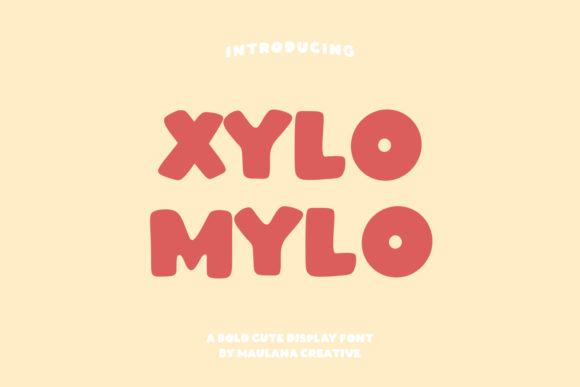
Prepare yourself to be spellbound by the captivating charm of Xylomylo Font, a display font that embodies the essence of cinematic magic. Crafted with meticulous care by the esteemed Maulana Creative, Xylomylo is a typographic masterpiece that will elevate your creative endeavors to dizzying heights.
Immerse yourself in the world of cinema as Xylomylo transports you to the silver screen. Its thick, playful letters dance across the page like a captivating performance, demanding attention and leaving an unforgettable mark. Picture your movie titles adorned with Xylomylo's enchanting presence, captivating audiences and setting the stage for an unforgettable cinematic experience.
Beyond the realm of film, Xylomylo's versatility knows no bounds. Unleash your imagination and let its whimsical characters adorn your letterheads, breathe life into your stationery, and add a touch of playful elegance to any creative project. Each letter is a work of art, meticulously designed to evoke a sense of wonder and ignite your creative spark.
Indulge in the sheer delight of Xylomylo Font and unlock a world of typographic possibilities. Let its charming letters weave their magic into your designs, captivating your audience and leaving them spellbound. Embrace the cinematic allure of Xylomylo and witness your creative visions come to life in a way that will leave an indelible impression.